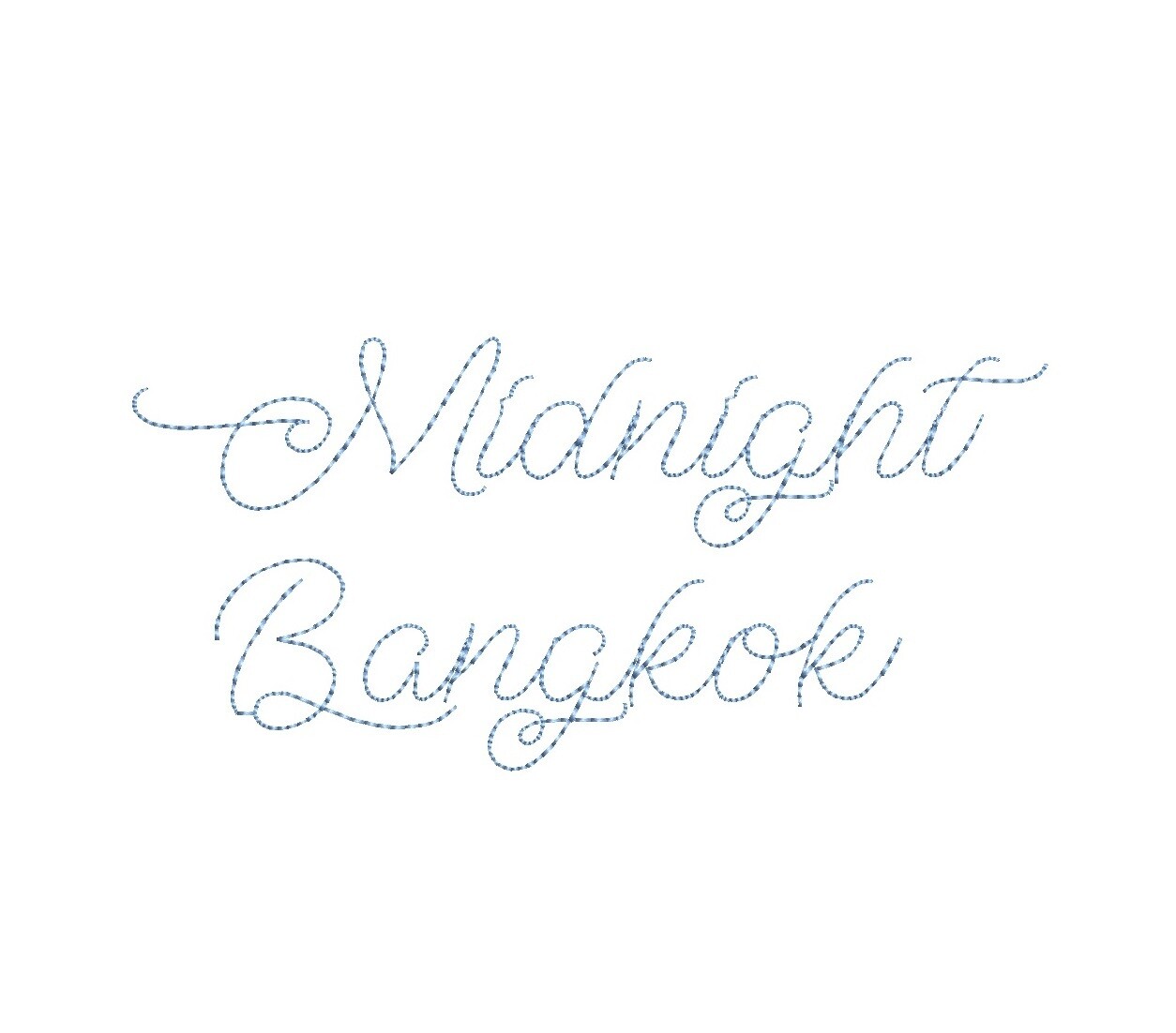
"Discover the mesmerizing Midnight Bangkok Bean Stitch ESA font, an exceptional embroidery design perfect for your creative projects. Compatible with the latest versions of Wilcom Studio e4.5.6 and Hatch 3 and above, this font delivers unparalleled stitch precision and intricate detailing. Elevate your embroidery game with its captivating bean stitch pattern, designed to add a touch of elegance and charm to any textile masterpiece. From monograms to intricate designs, this font offers endless creative possibilities. Unlock your artistic potential with this SEO-optimized font, ensuring your projects are both visually stunning and search engine friendly. Don't miss out on this exceptional embroidery asset!"